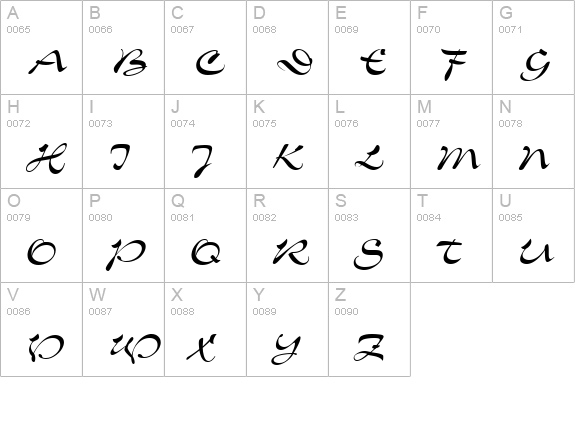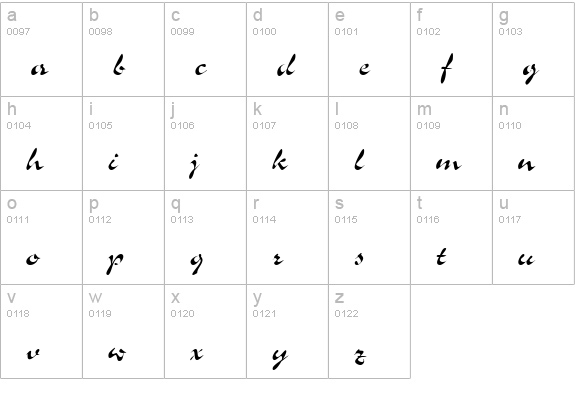
Slalom Regular Font Details
Slalom Regular is the standard, neutral variant in the Slalom typeface family \xE2\x80\x94 well suited to general body text, paragraphs, and standard typographic work.
Slalom Regular font is a versatile typeface that exudes elegance and sophistication. With its clean lines and balanced proportions, this font is perfect for a wide range of design projects, from logos and branding materials to invitations and packaging. Designed with legibility in mind, Slalom Regular offers excellent readability both in print and on screen. Its timeless appeal makes it suitable for various applications, ensuring your message will be conveyed with clarity and style. One of the best features of Slalom Regular font is that it is available for free download at FontsMarket.com. This means that you can easily access this high-quality font without any cost, making it an excellent choice for designers on a budget or those who simply appreciate the value of a free resource. Whether you are a professional designer looking to elevate your creations or an amateur enthusiast exploring the world of typography, Slalom Regular font is a must-have addition to your font library. Its versatility, readability, and availability as a free download make it a go-to choice for any design project. Don't miss out on the opportunity to enhance your work with this exceptional typeface - head over to FontsMarket.com today and download Slalom Regular for free!